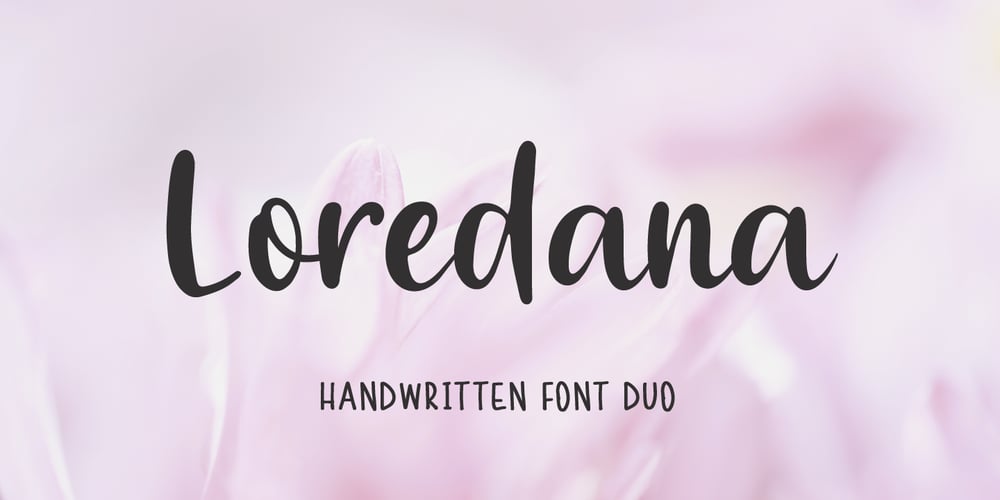
Loredana Font Family was designed by Pavel Larin and published by Larin Type Co. Loredana contains 2 styles and family package options. Loredana – a new handwritten font duo will give you the opportunity to make amazing compositions. These fonts fit into any project, due to its simplicity. Use those fonts for branding or to create a logo, a beautiful frame for your home, or use them for book covers, stationery, marketing, a blog, magazines, for your business and much more.